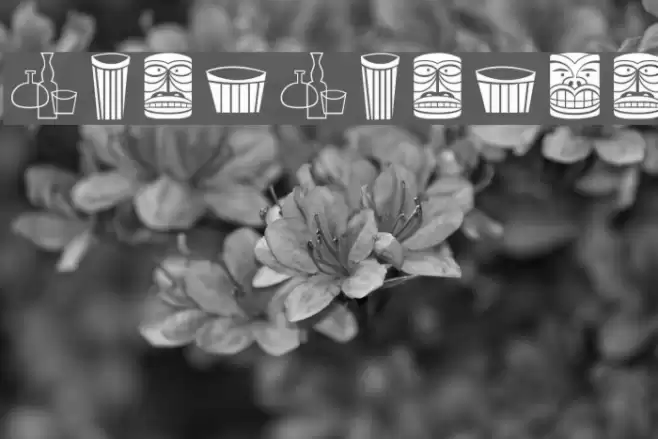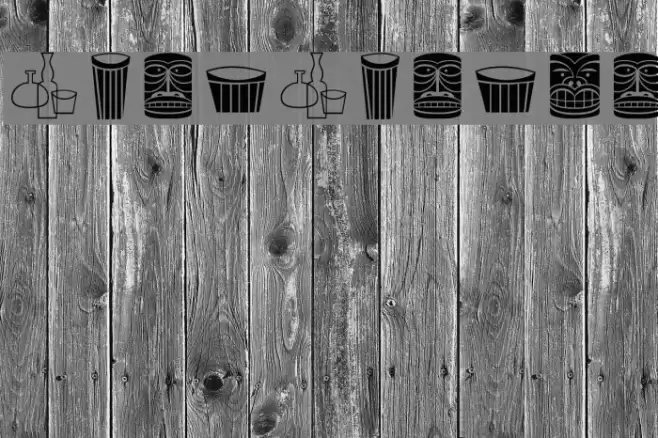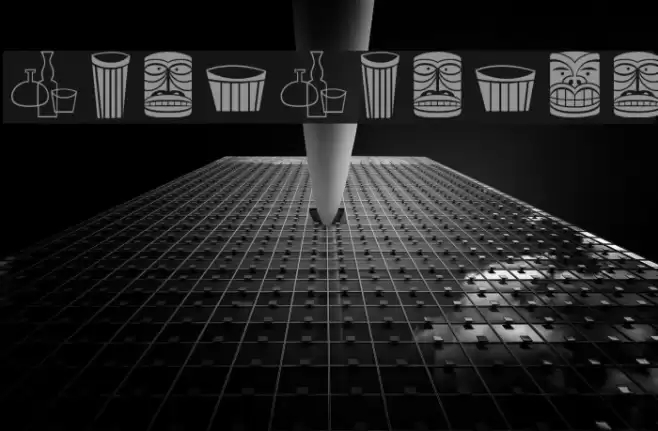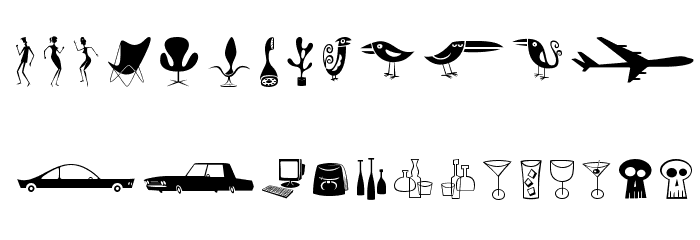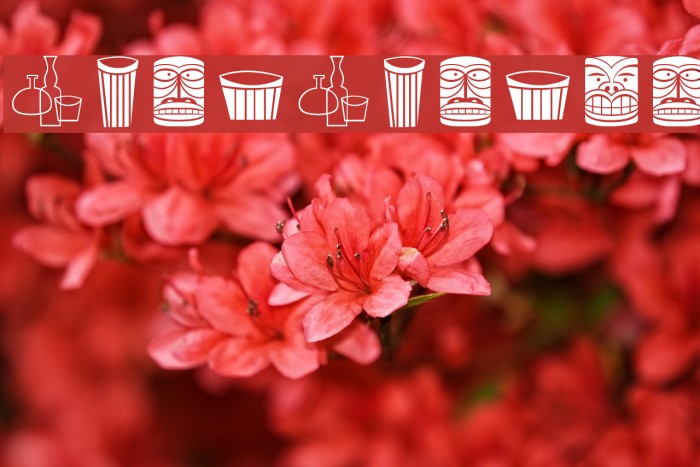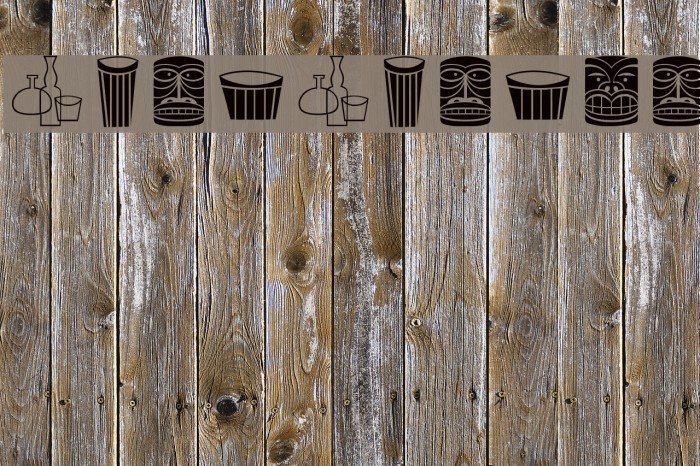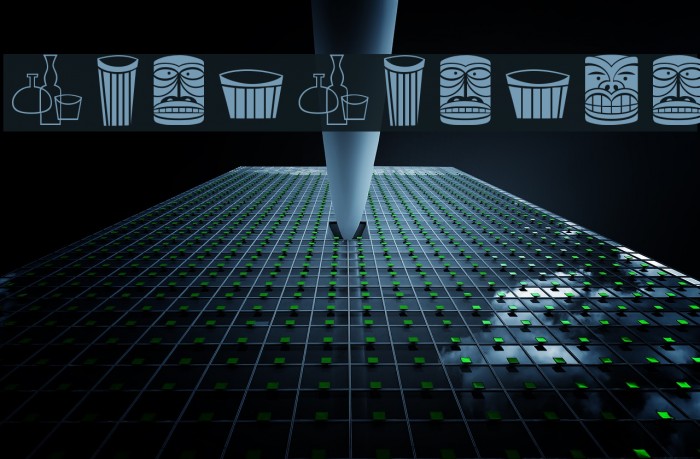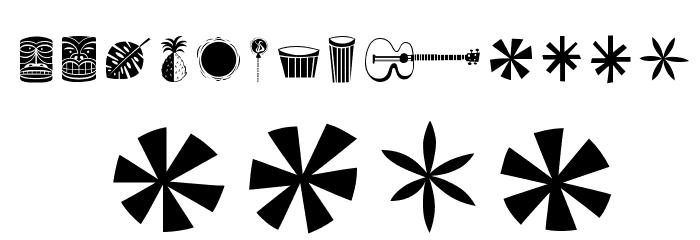
Shag-Shagbats Font
Shag-Shagbats Description
This set features a collection of playful and whimsical icons that capture a retro and tiki-inspired aesthetic. The characters include stylized dancers, mid-century modern furniture, tropical plants, exotic birds, vintage cars, and various cocktail glasses. The icons are bold and graphic, with a strong emphasis on clean lines and simple shapes. The style is reminiscent of mid-20th-century design, evoking a sense of nostalgia and fun. The icons are perfect for adding a touch of vintage charm to any project, with their unique and eye-catching designs.
A playful, retro icon set with a tiki-inspired, mid-century modern aesthetic from Modern fonts.
- Proposed Projects: Ideal for retro-themed party invitations, tiki bar menus, vintage posters, and playful branding projects.
- Overall Style: Vintage
- Use Case: Logos, Posters, Invitations